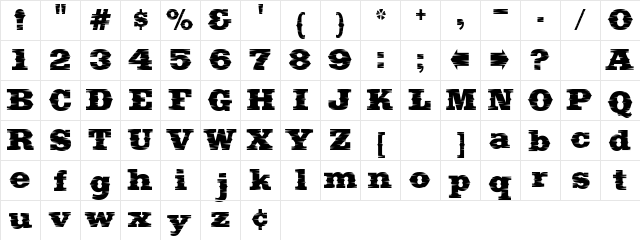
2 LynwoodCrakd DNA Regular
Design Context for 2 LynwoodCrakd DNA Typeface
2 LynwoodCrakd DNA echoes the hand-painted signage and woodblock typography of the American frontier, with a warm, rugged personality.
A natural fit for craft spirits, ranch branding, rodeo events, and Americana-inspired design work.
Font Pairing: Combine 2 LynwoodCrakd DNA with a simple slab or neutral sans — period-accurate companions reinforce the vintage feel without competing for attention.
Pro Tip: Use 2 LynwoodCrakd DNA for short, impactful bursts of text — it shines in poster headlines and product names rather than extended copy.